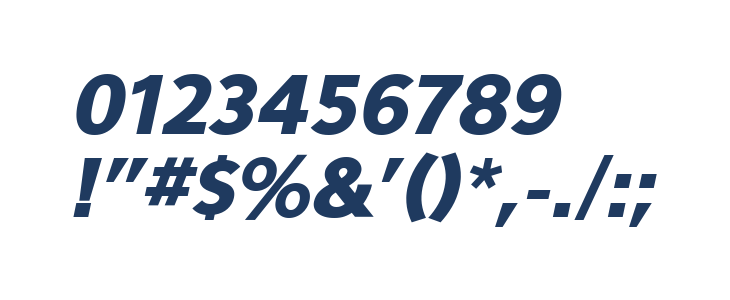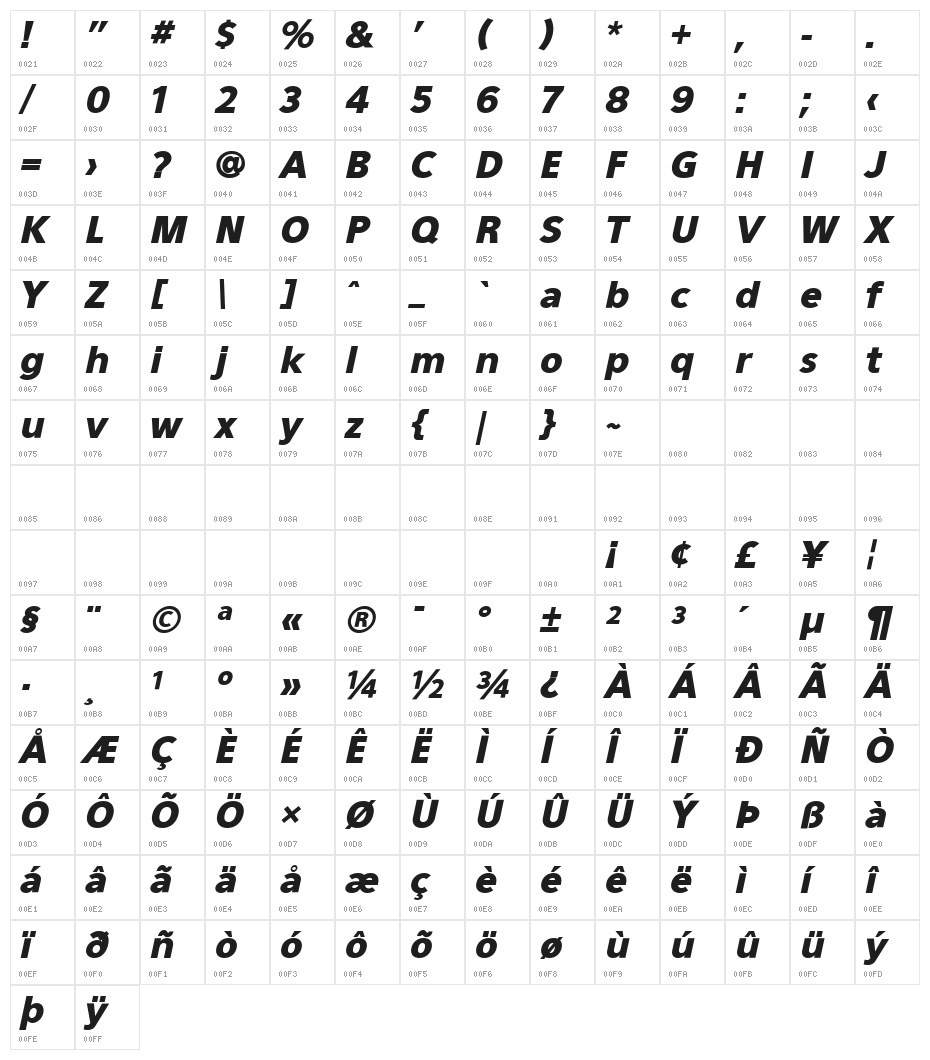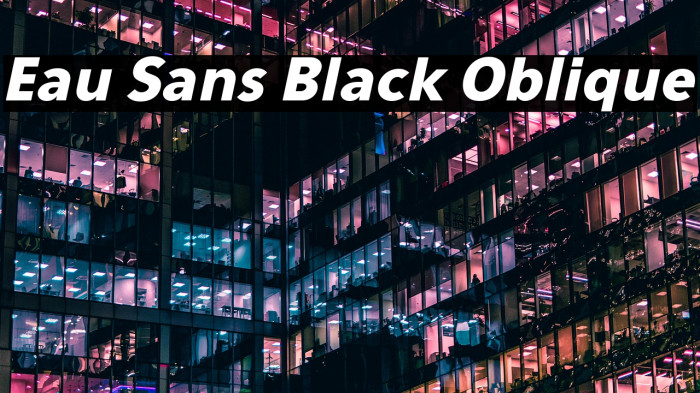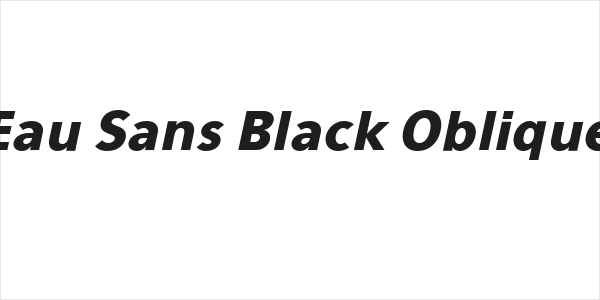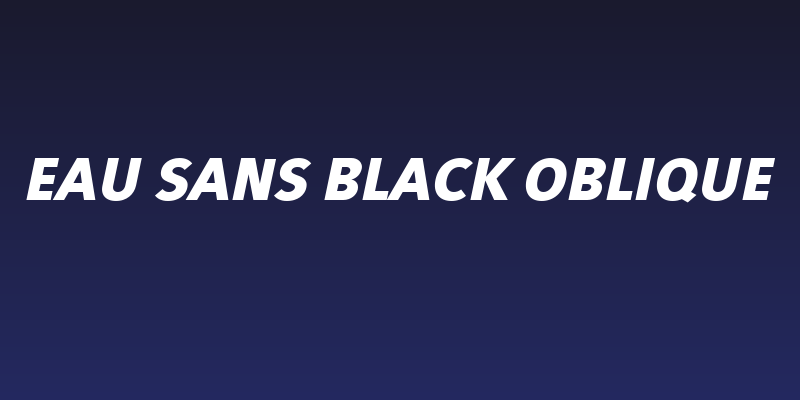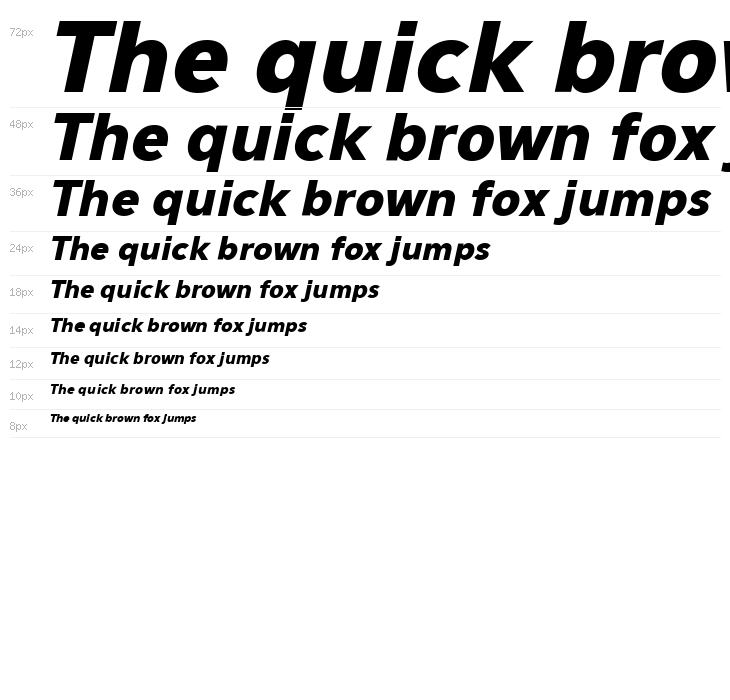
Eau Sans Black Oblique Font
Eau Sans Black Oblique Description
This font features a bold and oblique style, characterized by its strong, confident strokes and a forward-leaning posture. The sans-serif design ensures a clean and modern appearance, with each letterform exhibiting a uniform thickness that contributes to its boldness. The characters are slightly condensed, allowing for efficient use of space while maintaining readability. The font's design is sleek and contemporary, making it suitable for a variety of modern applications. The numerals and special characters are consistent with the overall style, providing a cohesive look across all elements.